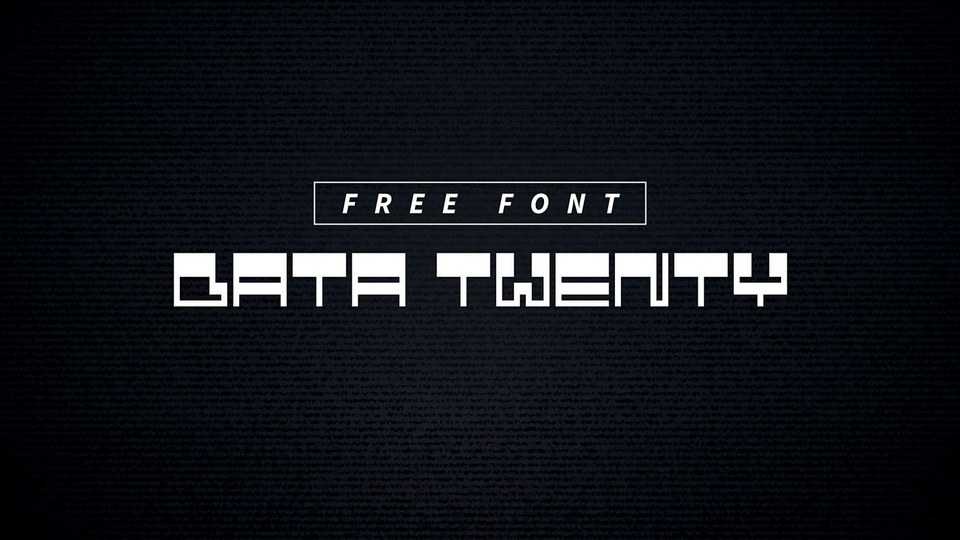
Data Twenty Font › Fontesk – Download Grátis
Download Data Twenty font, a high contrast geometrical typeface with an industrial spirit. Data Twenty is great for highlighting titles, working with posters, and web design.
Designer: Paul MacKay